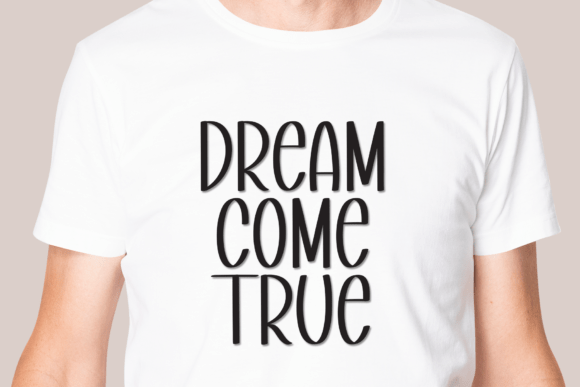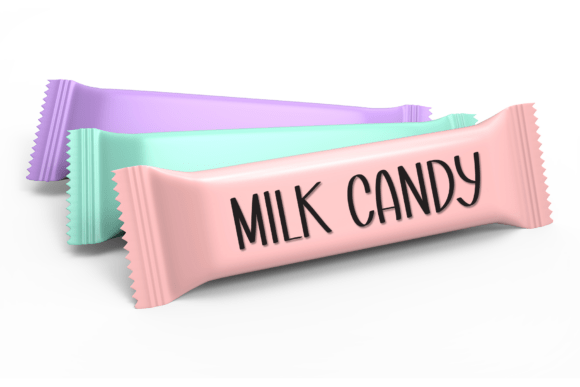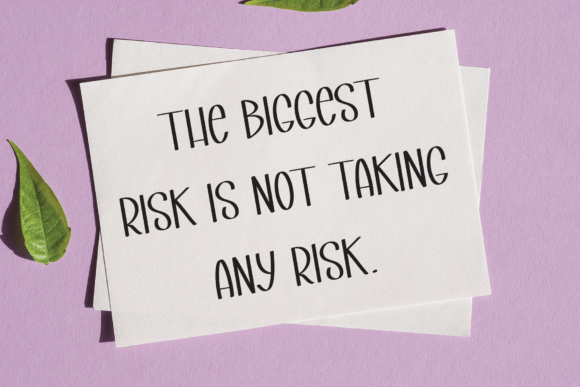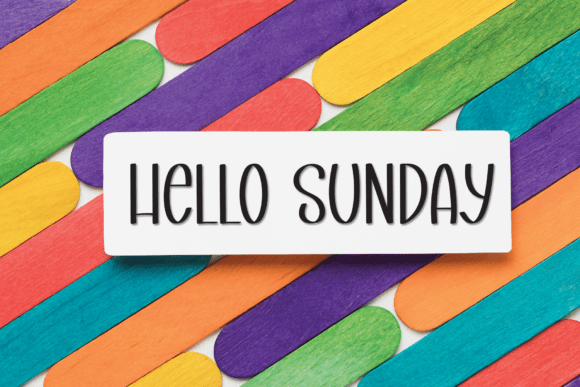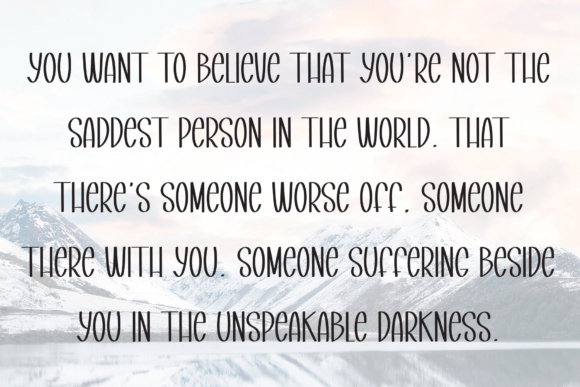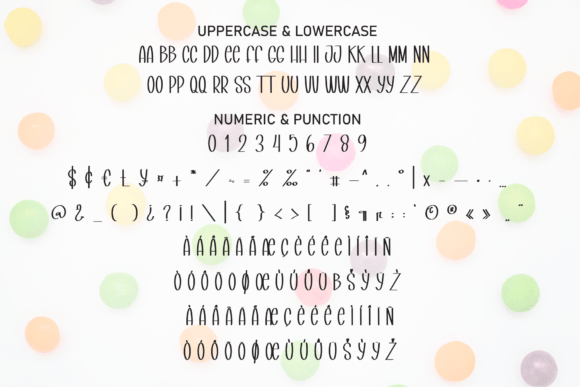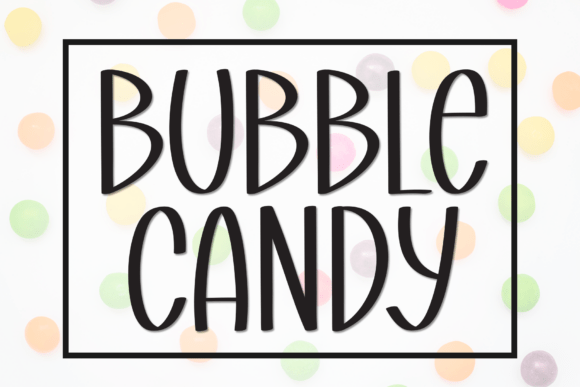
Bubble Candy Font: A Delightful Handwritten Display Font
Are you looking for a font that can add a touch of fun and sweetness to your design projects? Look no further than the Bubble Candy Font! This charming handwritten display font is perfect for crafting unforgettable wedding invitations, heartwarming cards, and injecting a playful touch to any design project.
What is Bubble Candy Font?
Bubble Candy Font is a delightful and personable handwritten display font that exudes a sense of fun and sweetness. Its unique and playful design makes it perfect for adding a touch of whimsy to any design project. The font is carefully crafted to capture the essence of joy and charm in every stroke, making it ideal for designers and crafters who want to create memorable and eye-catching designs.
Key Features of Bubble Candy Font
- Handwritten Display Font: Bubble Candy Font is a handwritten display font that is designed to add a personal touch to your designs.
- Delightful and Personable: The font has a delightful and personable feel that makes it perfect for creating heartwarming and unforgettable designs.
- Fun and Sweet: The font exudes a sense of fun and sweetness, making it ideal for designs that require a playful touch.
- Perfect for Wedding Invitations and Cards: The font is perfect for crafting unforgettable wedding invitations, heartwarming cards, and other special occasion designs.
- Versatile: Bubble Candy Font can be used for a wide range of design projects, from digital designs to print materials.
Why Use Bubble Candy Font?
There are many reasons why you should consider using Bubble Candy Font for your design projects. Here are a few:
- Adds a Personal Touch: The font adds a personal touch to your designs, making them more relatable and engaging.
- Creates a Playful Atmosphere: The font creates a playful atmosphere that is perfect for designs that require a fun and lighthearted touch.
- Unique and Creative: The font is unique and creative, making it perfect for designers who want to stand out from the crowd.
How to Use Bubble Candy Font?
Using Bubble Candy Font is easy! Here are a few tips to get you started:
- Pair it with Other Fonts: Pair Bubble Candy Font with other fonts to create a unique and creative design.
- Use it for Headings: Use Bubble Candy Font for headings and titles to add a touch of fun and sweetness to your designs.
- Experiment with Colors: Experiment with different colors to find the perfect combination that matches your design.
- Use it for Digital and Print Materials: Use Bubble Candy Font for both digital and print materials, such as social media graphics, business cards, and flyers.
Who Can Benefit from Bubble Candy Font?
Bubble Candy Font is perfect for designers, crafters, and anyone who wants to add a touch of fun and sweetness to their designs. Here are a few examples of who can benefit from this font:
- Wedding Planners: Wedding planners can use Bubble Candy Font to create unforgettable wedding invitations and other wedding-related designs.
- Graphic Designers: Graphic designers can use Bubble Candy Font to add a playful touch to their designs and create unique and creative visual content.
- Crafters: Crafters can use Bubble Candy Font to create heartwarming cards and other craft projects.
- Small Business Owners: Small business owners can use Bubble Candy Font to create eye-catching designs that reflect their brand’s personality.
In conclusion, Bubble Candy Font is a delightful and personable handwritten display font that exudes a sense of fun and sweetness. Its unique and playful design makes it perfect for adding a touch of whimsy to any design project. Whether you’re crafting unforgettable wedding invitations, heartwarming cards, or injecting a playful touch to any design project, Bubble Candy Font is the perfect choice. So why wait? Download Bubble Candy Font today and start creating memorable and eye-catching designs!